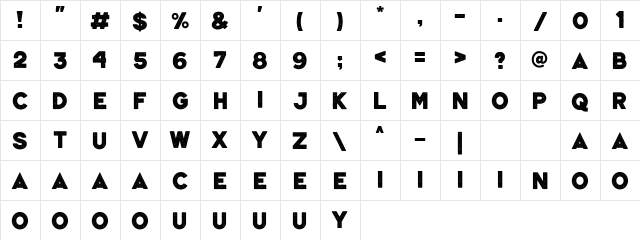
VELTIC Regular
| Designer | AddeSant |
Design Context for VELTIC Typeface
VELTIC offers clean, dependable letterforms without strong stylistic allegiance, making it a practical choice for designers who need flexibility.